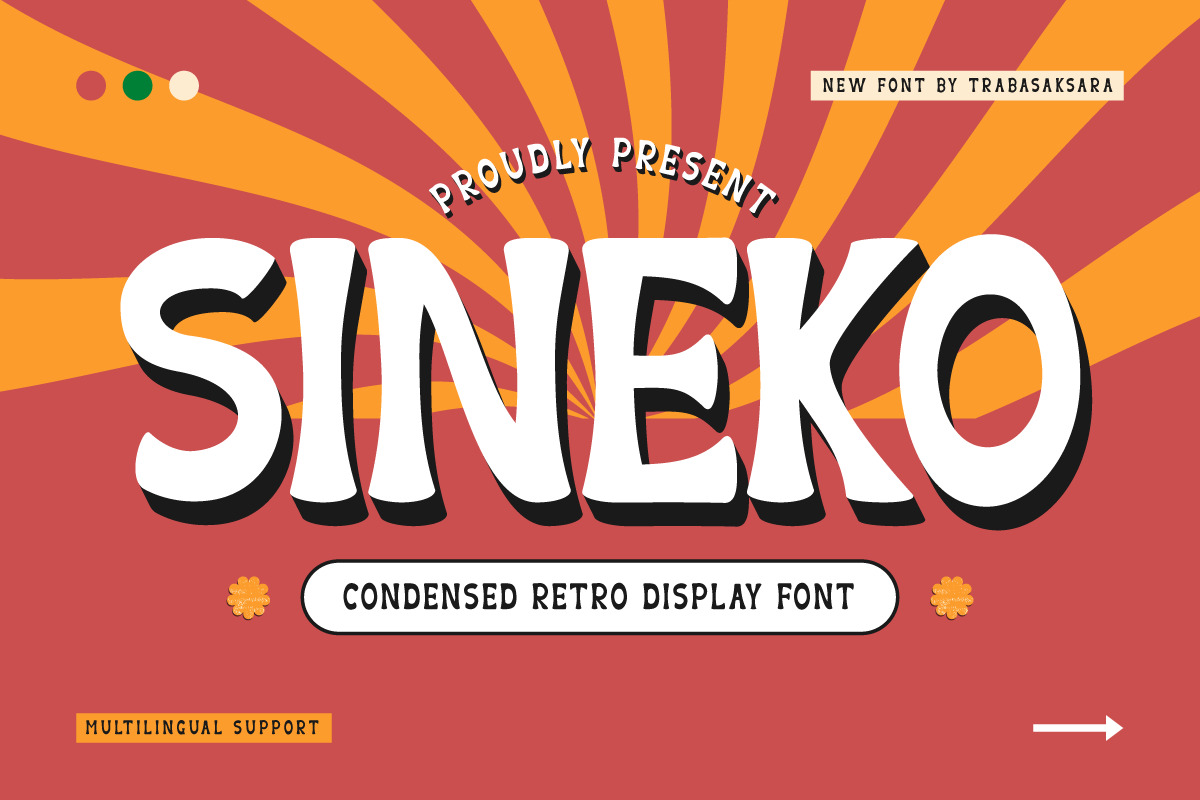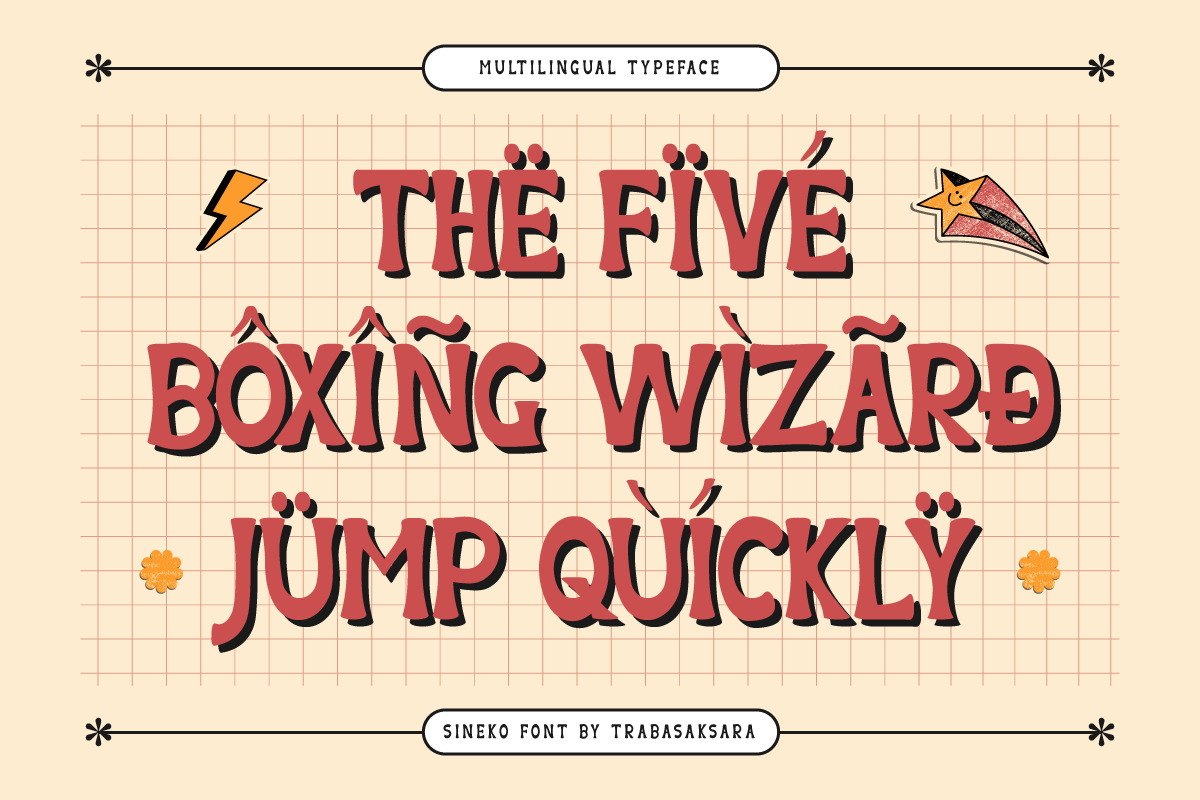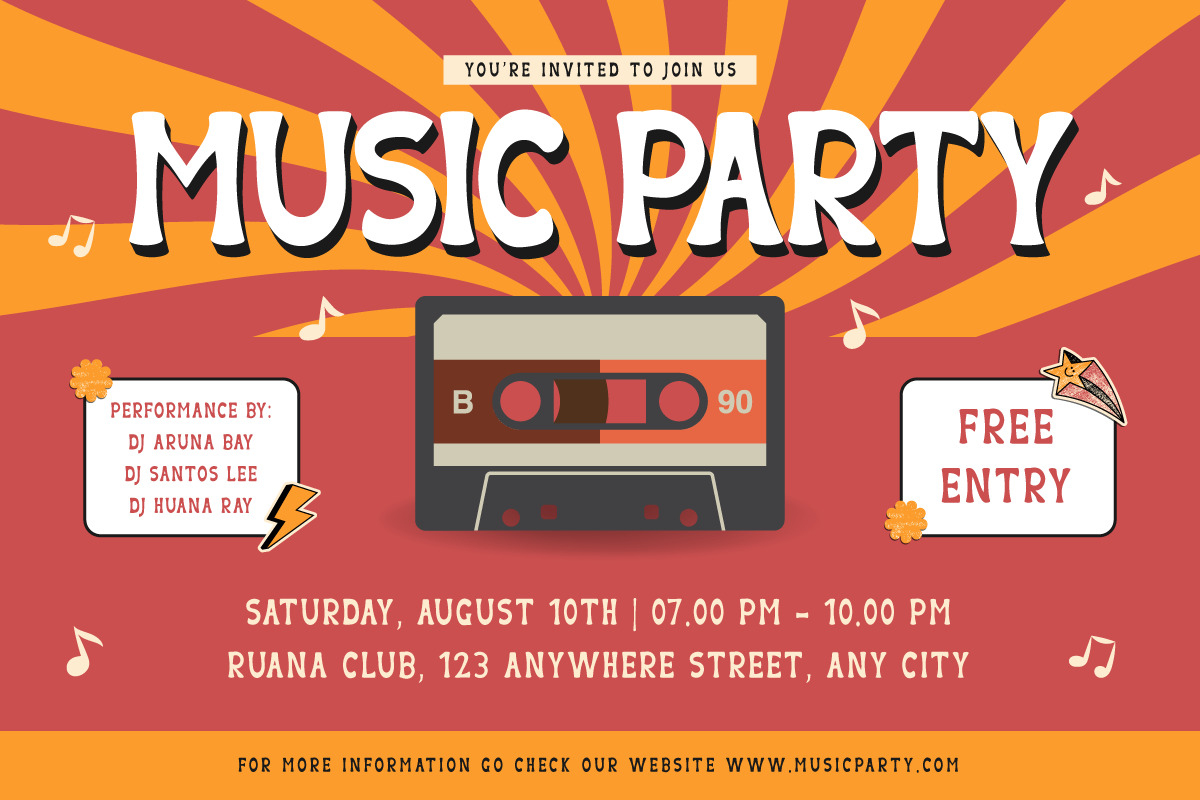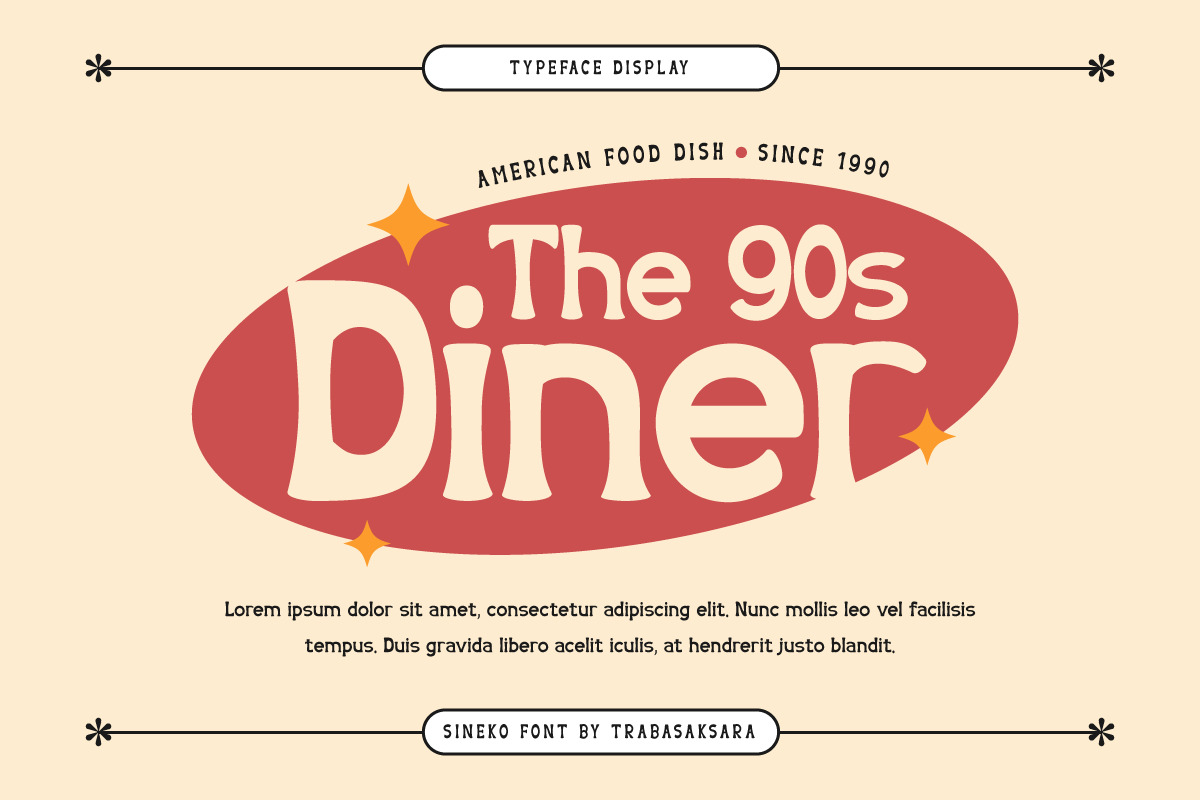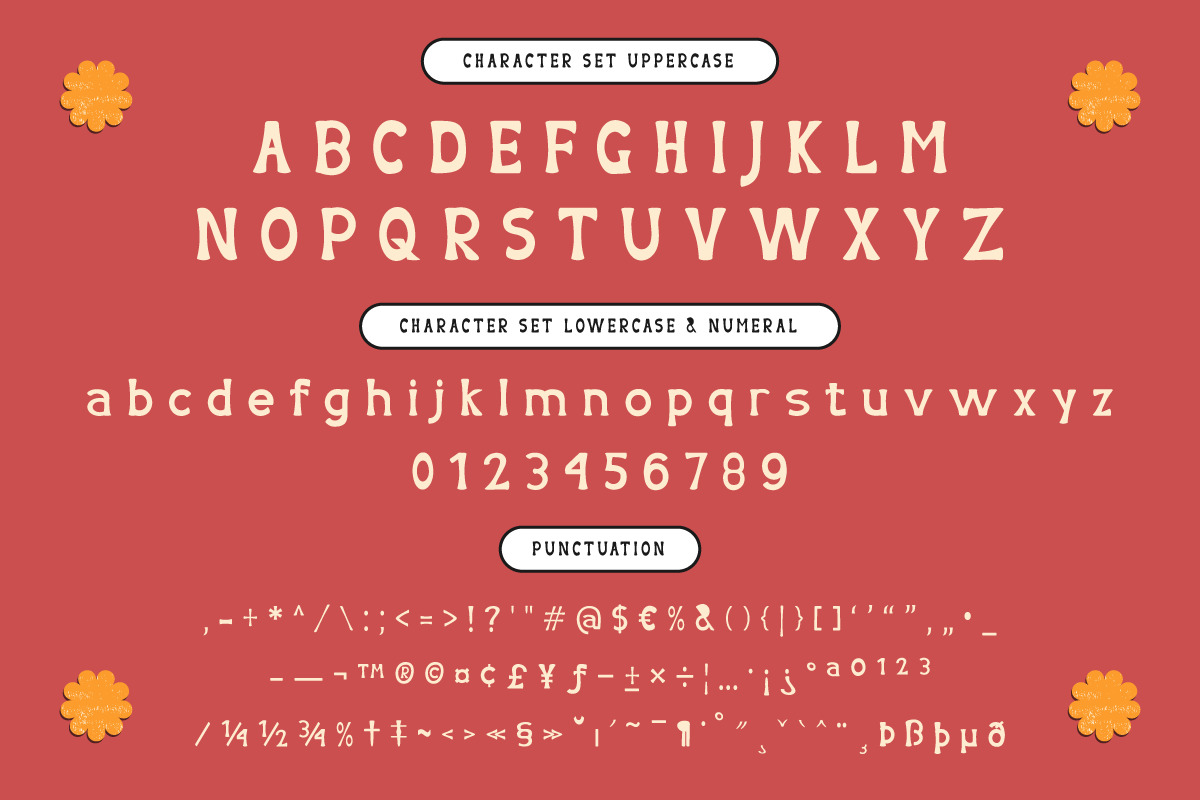
Sineko - Condensed Retro Display Font
Introducing Sineko Font - the perfect choice for designers who want to create designs that are both unique and captivating.
With its distinctive and stylish design, Sineko Font is perfect for a wide range of design projects. Whether you're creating a branding identity, designing a poster, or working on a digital project, Sineko Font will help you create designs that are both visually stunning and impactful.
Crafted with precision and attention to detail, Sineko Font features bold and playful letterforms, unique curves and swashes, and a range of weights and styles to suit any design need. Whether you're looking for a fun and lively display font or a more elegant and refined option, Sineko Font has got you covered.
And with its highly legible design, Sineko Font is perfect for use in headlines and shorter text blocks, helping you create designs that are both stylish and effective.